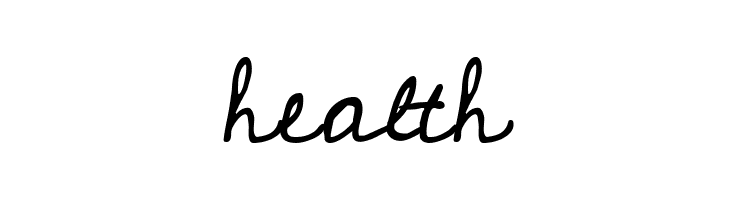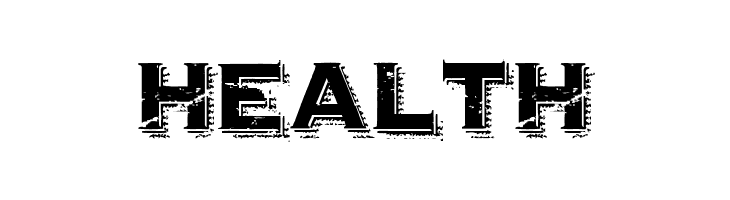
A bold, monospaced font with a mechanical, retro style.
A bold, monospaced font with a vintage computer aesthetic.
A bold, structured font with a modern, geometric style.
A bold, expressive handwritten font with dynamic strokes.
A bold, edgy font with a hand-painted, rebellious style.
A bold, distressed font with a futuristic and edgy design.
A bold, graffiti-style font with angular, dynamic letterforms.
A bold, distressed font with jagged edges and a chaotic, hand-drawn appearance.
A bold, graffiti-inspired font with sharp, angular lines and dynamic flow.
A bold, modern sans-serif font with strong, uniform strokes and tight spacing.
A chaotic, ink-splattered font with irregular, jagged characters.
A playful, casual handwritten font with smooth, flowing curves.
A bold, distressed font with a grungy, urban aesthetic.
A bold, expressive font with brush-like strokes and dynamic, irregular characters.
A bold, geometric font with unique cutouts and a modern aesthetic.
A decorative script font with flowing, interconnected letterforms and intricate swashes.
A playful, hand-drawn font with tall, narrow characters and a whimsical charm.
A bold, elegant script font with intricate loops and flourishes.
A rugged, distressed font with heavily textured, irregular edges.
A bold, flowing script font with elegant, cursive strokes.
A playful, hand-drawn script font with smooth, flowing curves.
A classic italic font with moderate contrast and elegant slant.
A bold, italic font with a strong, dynamic presence.
A bold slab serif font with a vintage typewriter style.
A bold, rounded font with low contrast and a friendly appearance.
An elegant and flowing script font with connected letterforms.
A modern, italicized font with a sleek and dynamic style.
A rustic, hand-crafted font with a bold and slightly distressed appearance.
A bold, geometric font with clean lines and consistent stroke width.
Bold, italicized font with a rugged, distressed style.
A bold, distressed font with a rustic, handcrafted appearance.
Bold, italicized font with a dynamic and modern style.
Bold, italicized font with strong, dynamic slant and thick strokes.